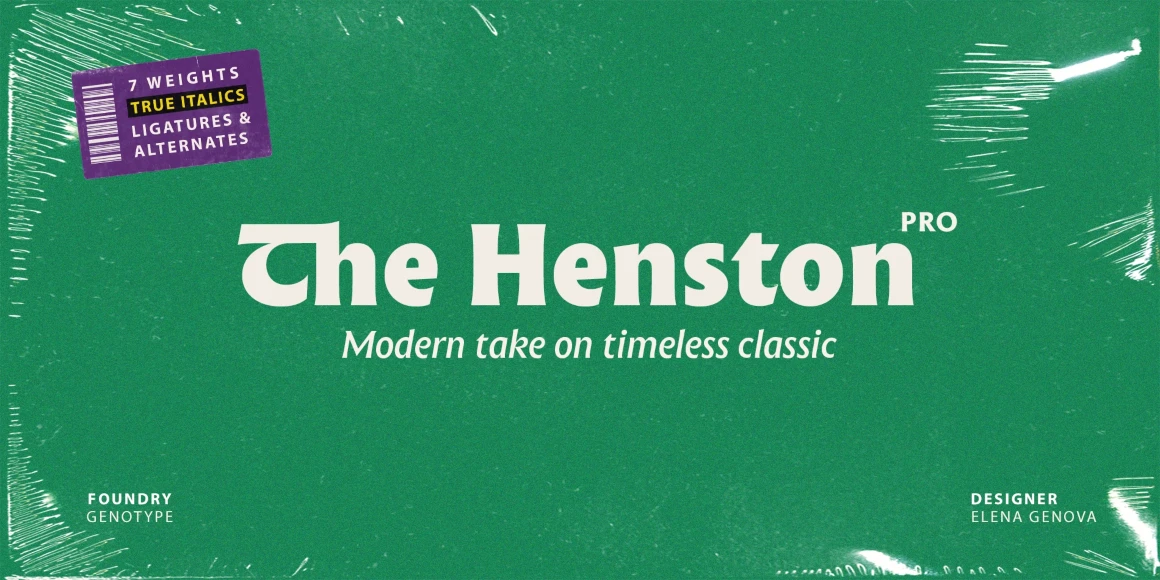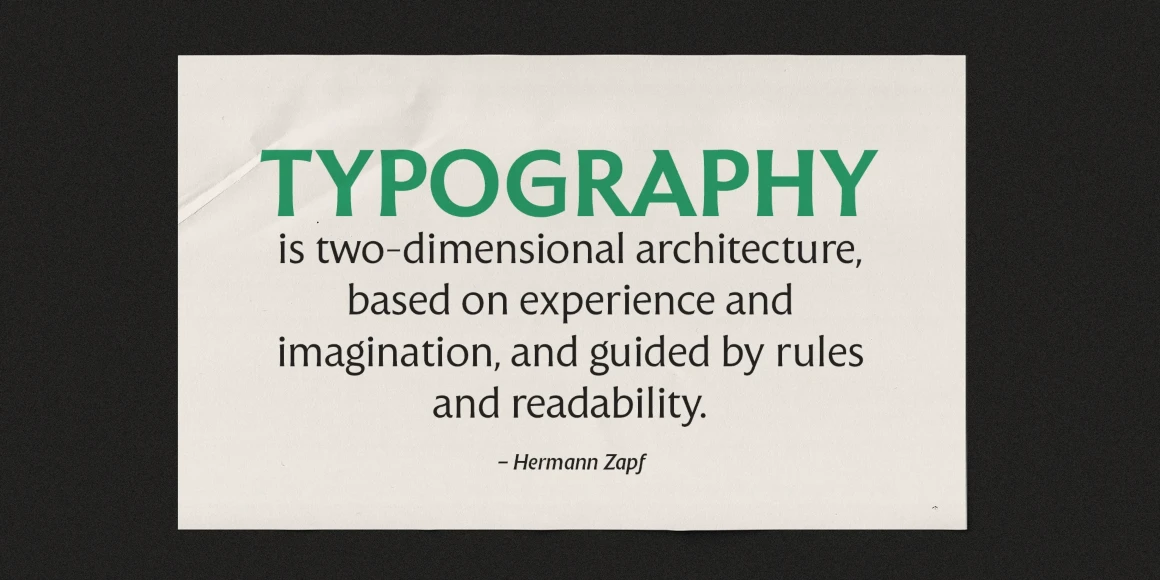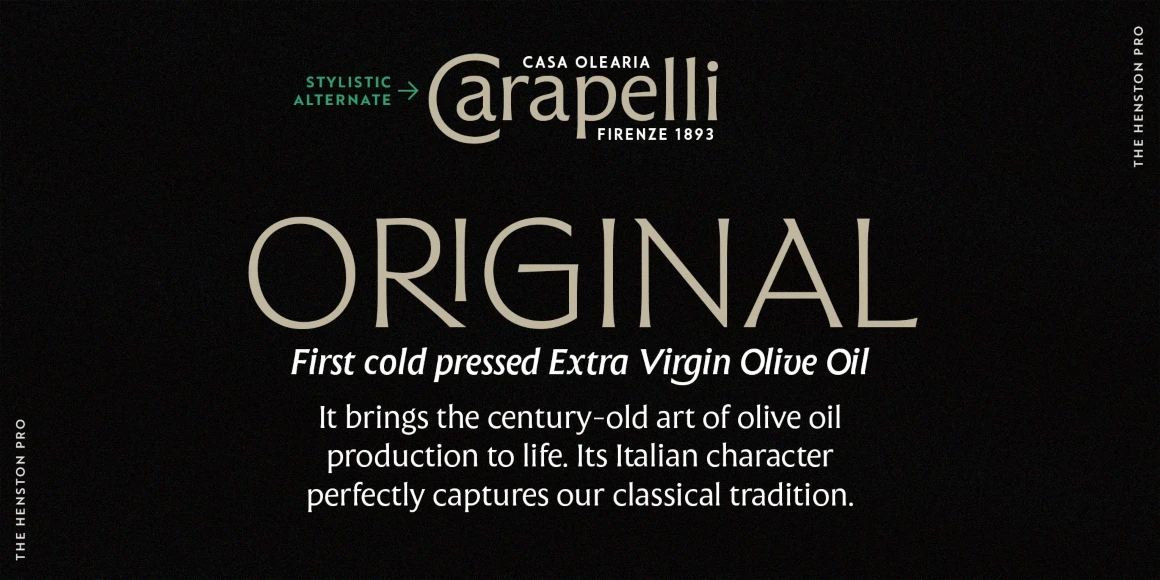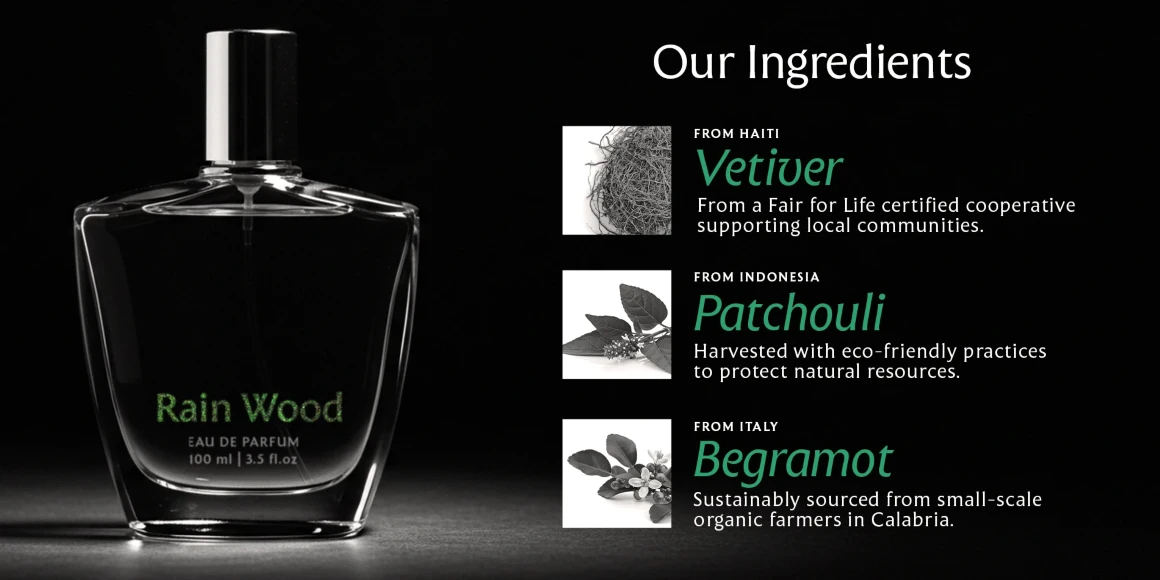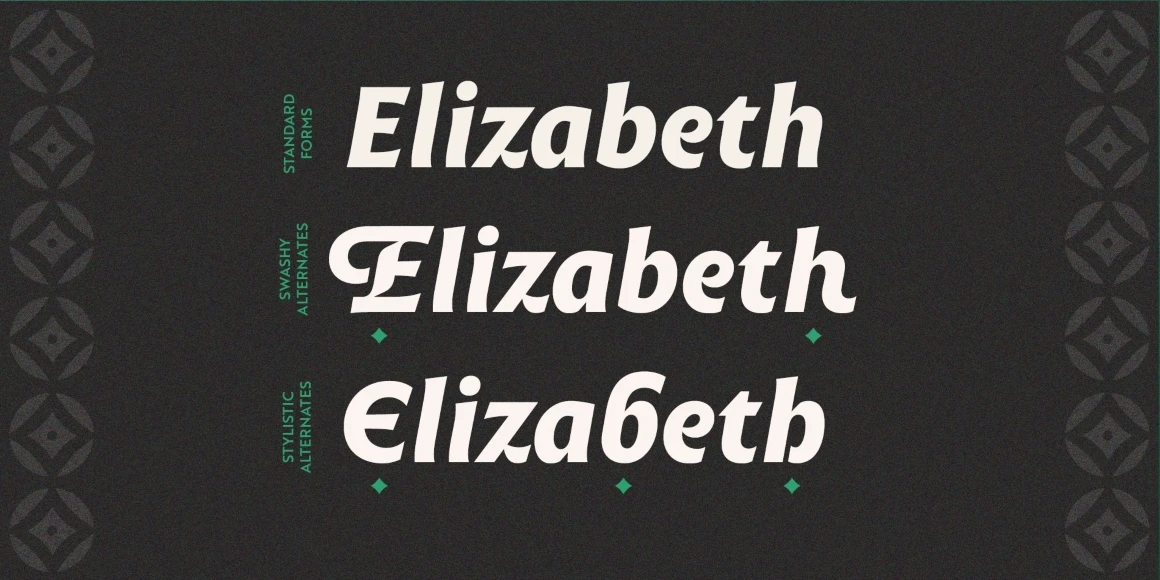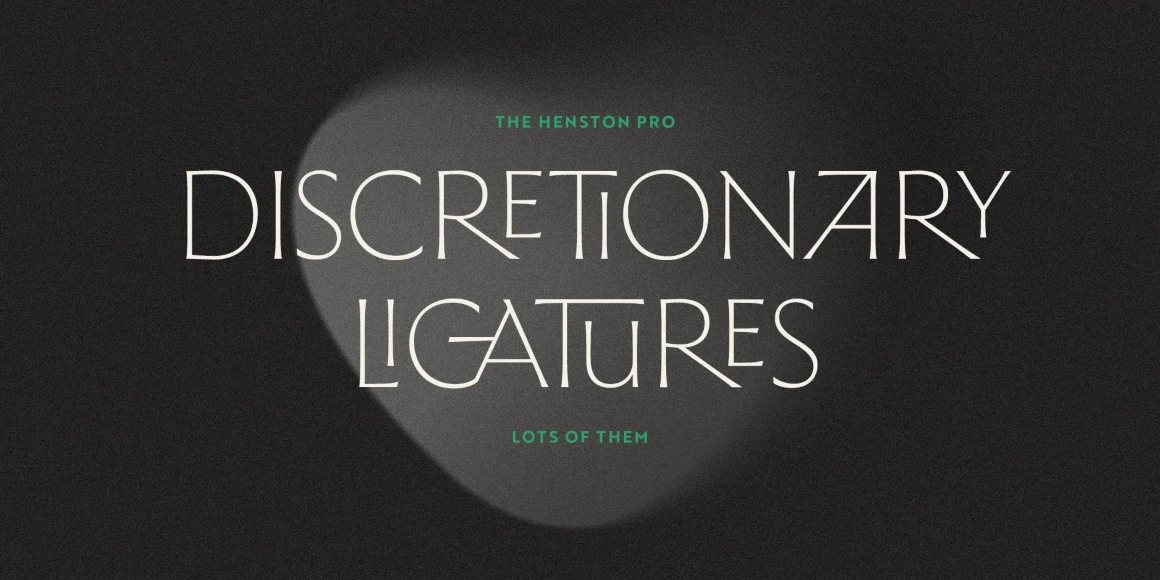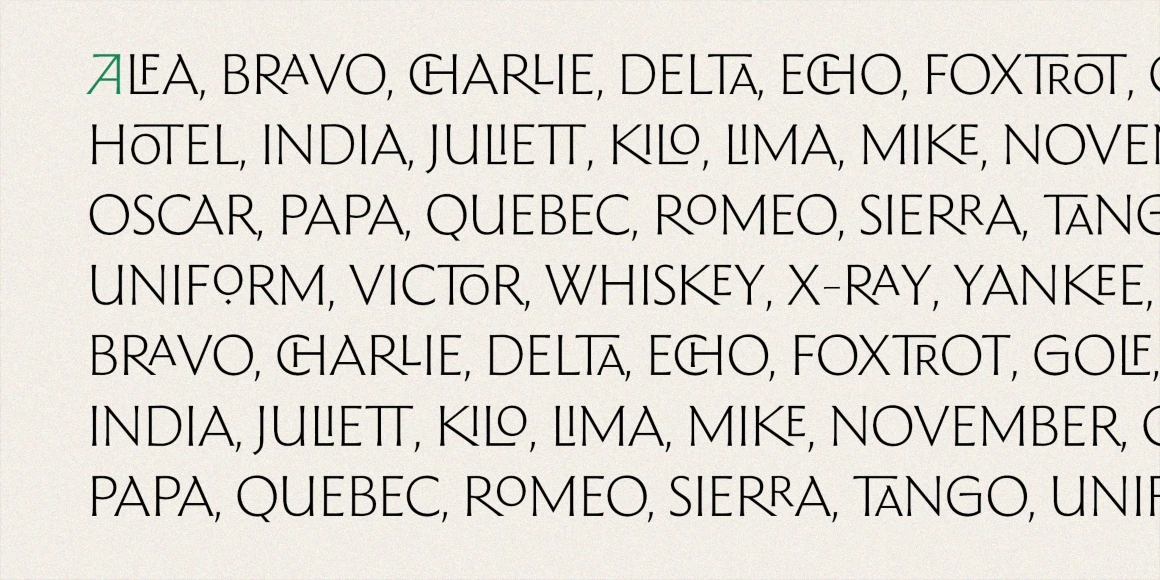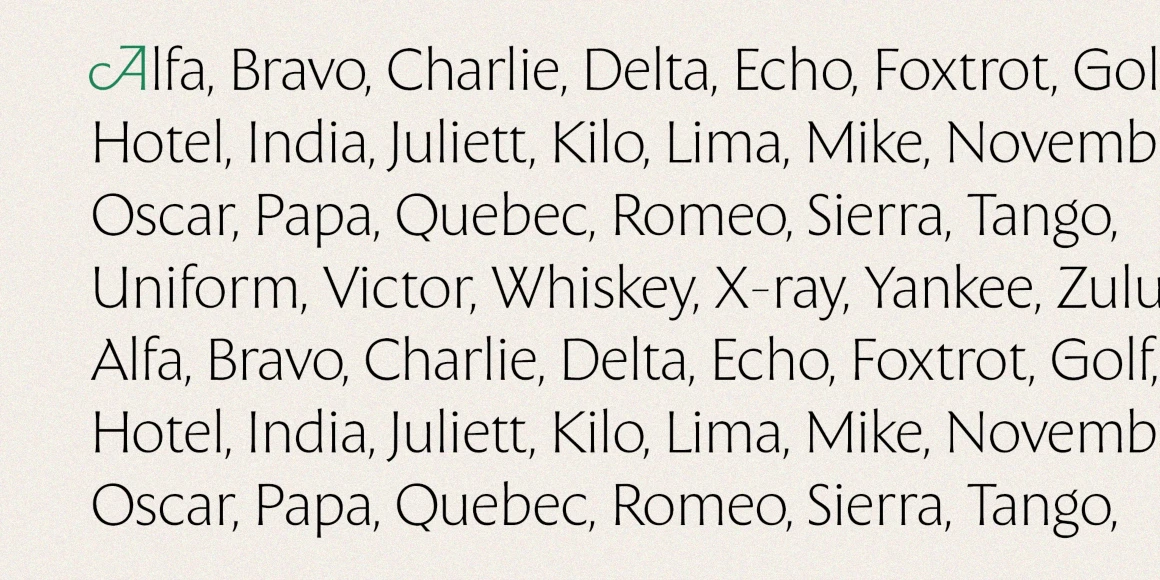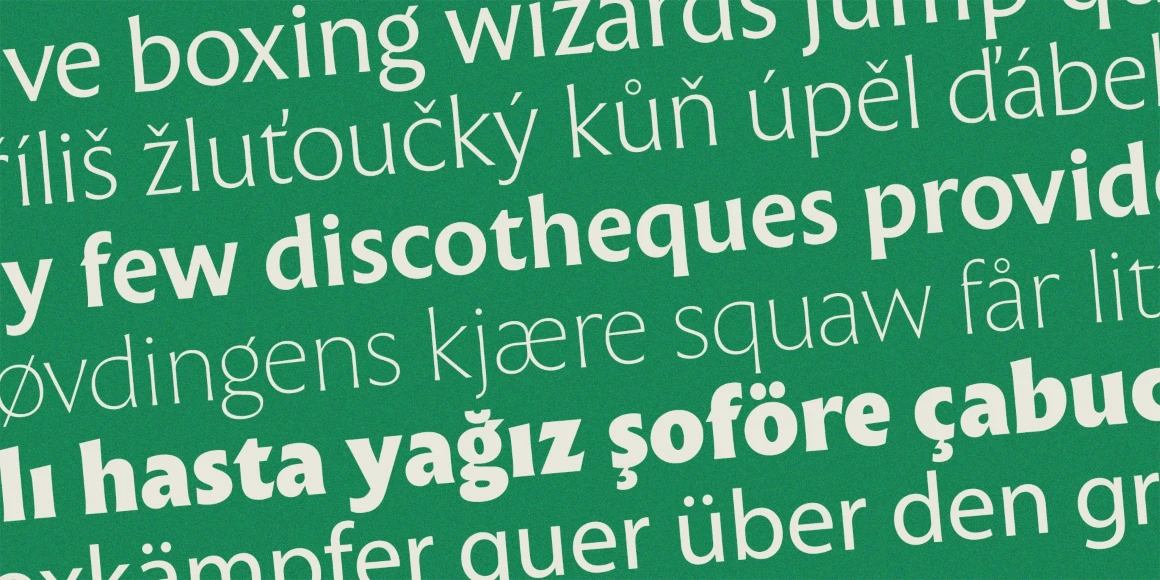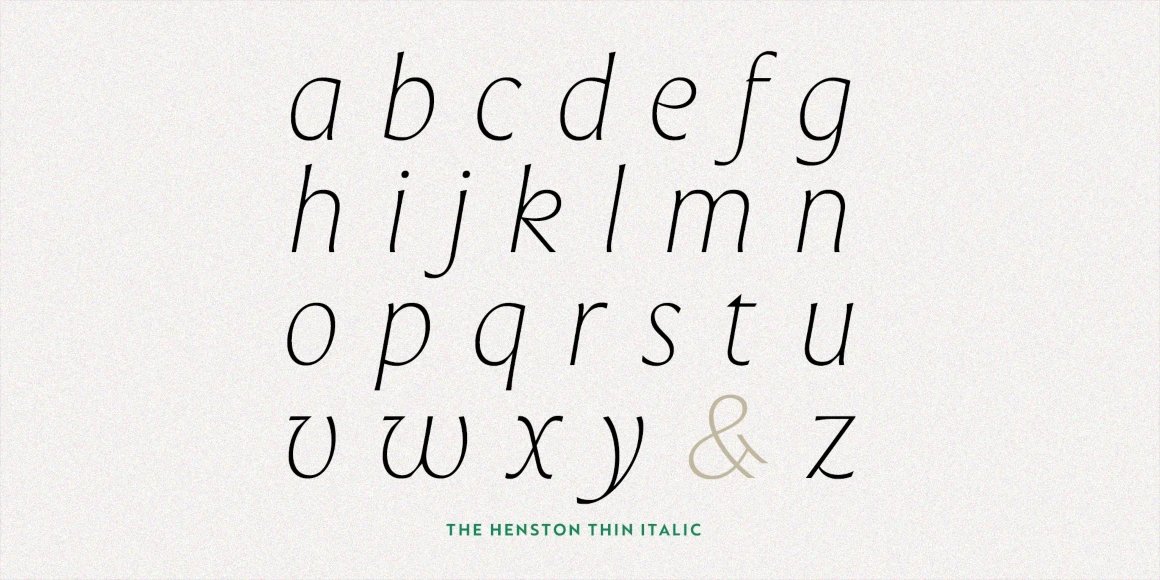
The Henston
By Elena Genova
The Henston is a flared serif font family inspired in part by incised letterforms, such as Berthold Wolpe’s Albertus and Hermann Zapf’s Optima. Its subtle shaping is ideal for display, yet the open forms maintain legibility at subhead and text sizes. The companion italics take cues from calligraphy, and with ligatures and alternates, these typefaces will enhance websites, magazines, book covers, and branding. Available in seven weights — Thin to Black — The Henston adds warmth to any project.